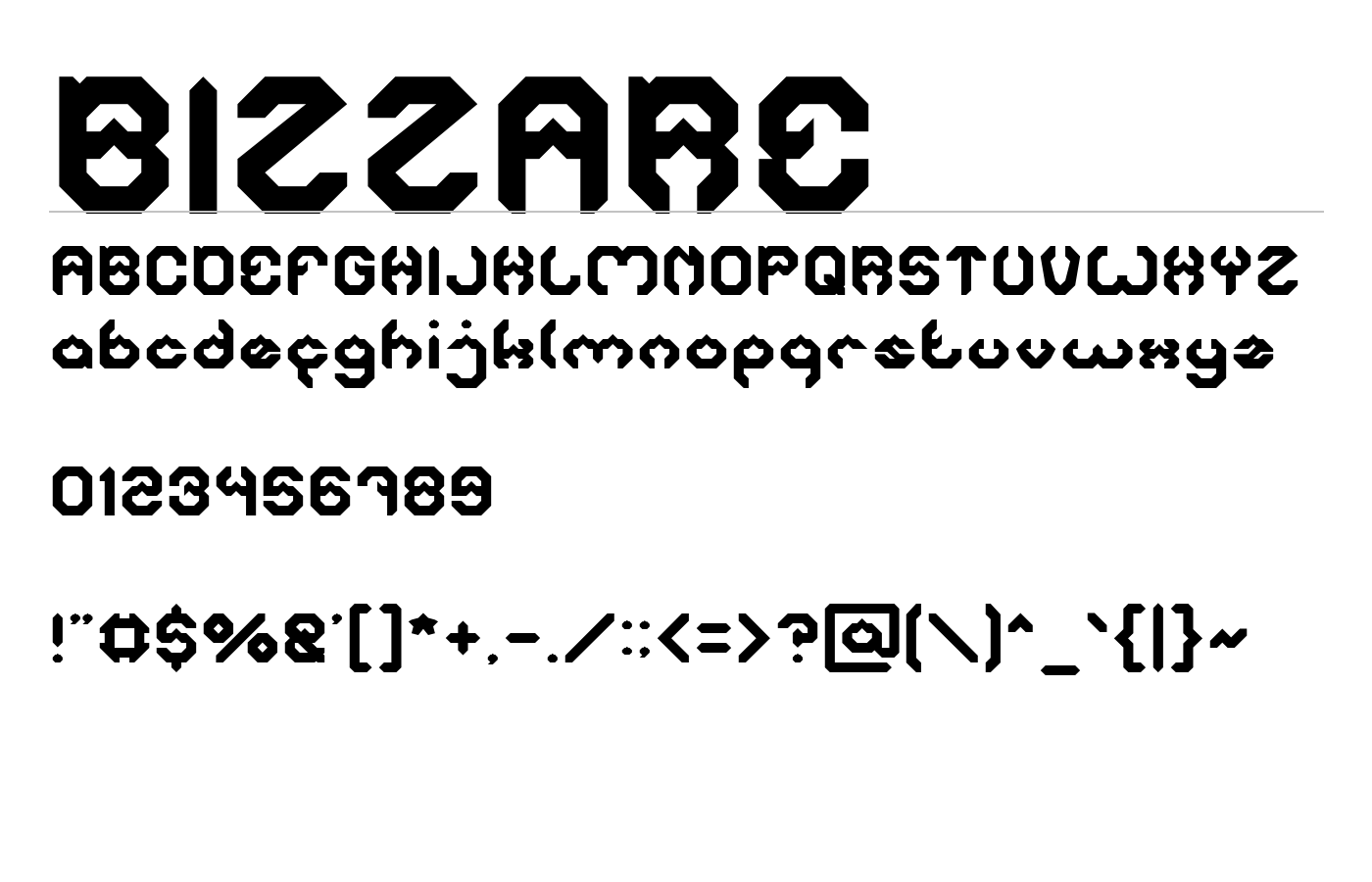
BIZZARE is a bold, geometric sans serif font with a unique, blocky design that features sharp angles and octagonal shapes throughout its characters, giving it a distinctively modern and edgy look. Its strong presence and slightly condensed width make it ideal for attention-grabbing headlines, logos, or creative branding that seeks a futuristic, tech-inspired vibe. This font works best where a bold, unconventional style is needed to stand out and convey innovation or a cutting-edge personality.
BIZZARE Font
About BIZZARE Font